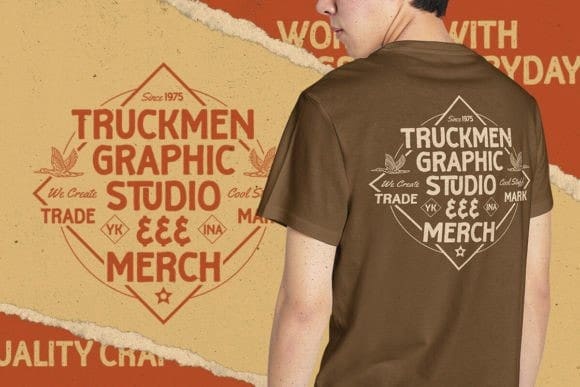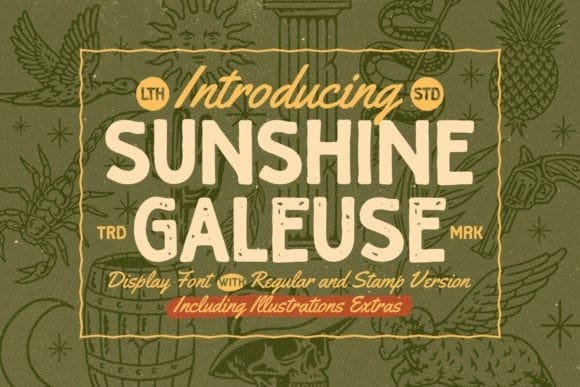
Sunshine Galeuse Font
Sunshine Galeuse Font, with a touch of classic look and feel. You will also get a premade logo and illustration for your project, great to use as a t-shirt illustration!
Sunshine Galeuse Font is also perfectly made to be applied especially in logos, headlines, signage, and the other various formal forms such as invitations, labels, logos, magazines, books, greeting/wedding cards, packaging, fashion, makeup, stationery, novels, labels or any type of advertising purpose.